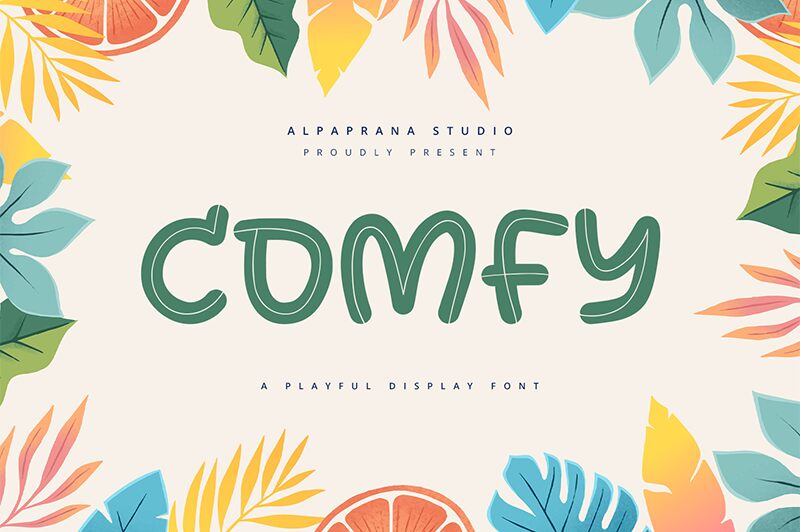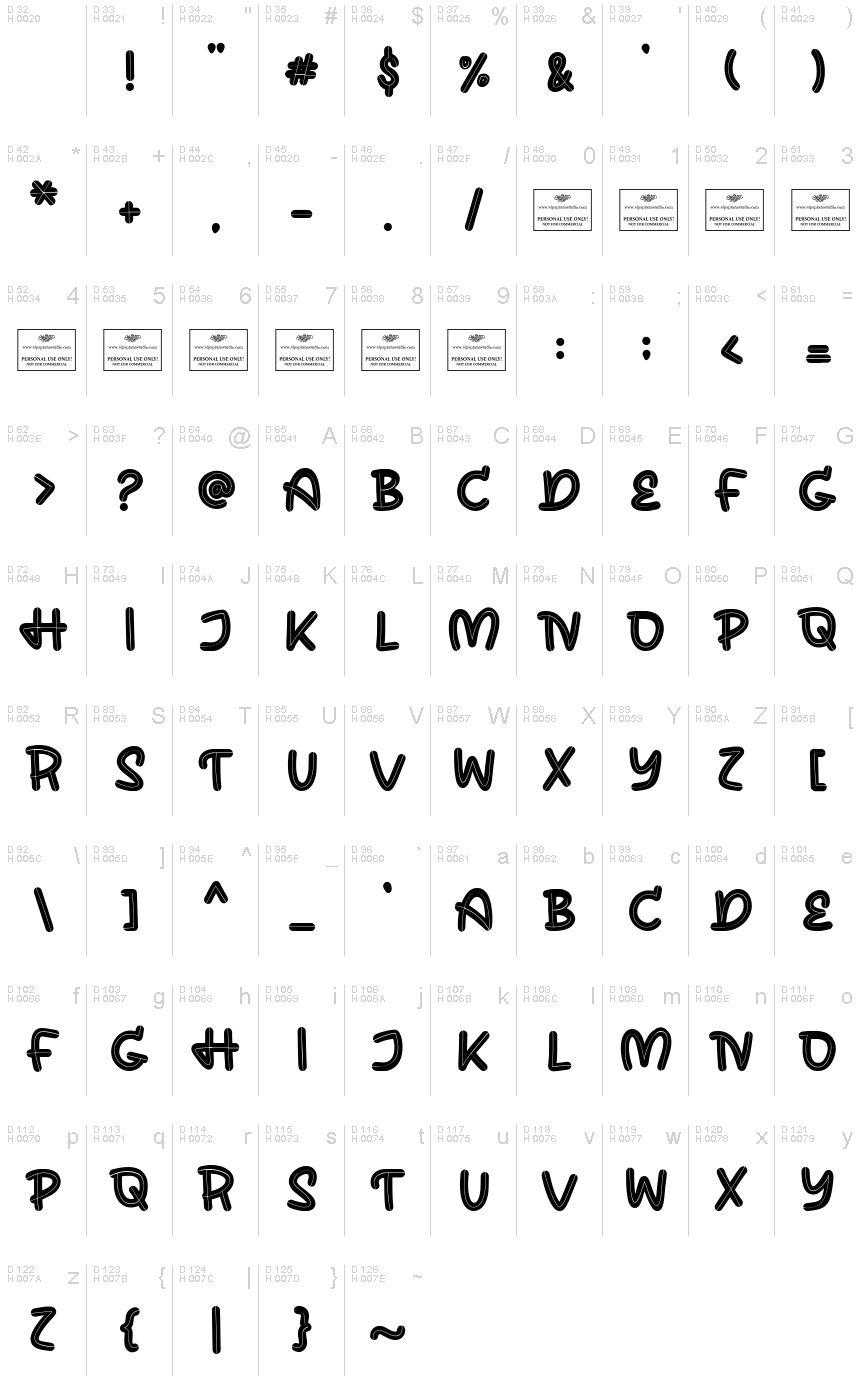
Comfy
Comfy is a captivating display font that exudes a sense of playfulness and warmth. Crafted by the talented team at Alpaprana Studio, this font boasts a distinctive, rounded aesthetic that instantly catches the eye. With its bold, expressive strokes and undulating curves, Comfy effortlessly conveys a feeling of comfort and approachability, making it an ideal choice for a wide range of design applications.
Whether adorning a quirky logo, a vibrant poster, or the header of a cozy website, Comfy's versatile personality shines through, adding a touch of whimsy and charm to any project. Its expansive nature lends itself well to use in large-scale displays, while its inherent legibility ensures it remains legible even in smaller implementations. Comfy is a font that invites exploration, inspiring designers to unleash their creativity and craft memorable, engaging visual experiences.